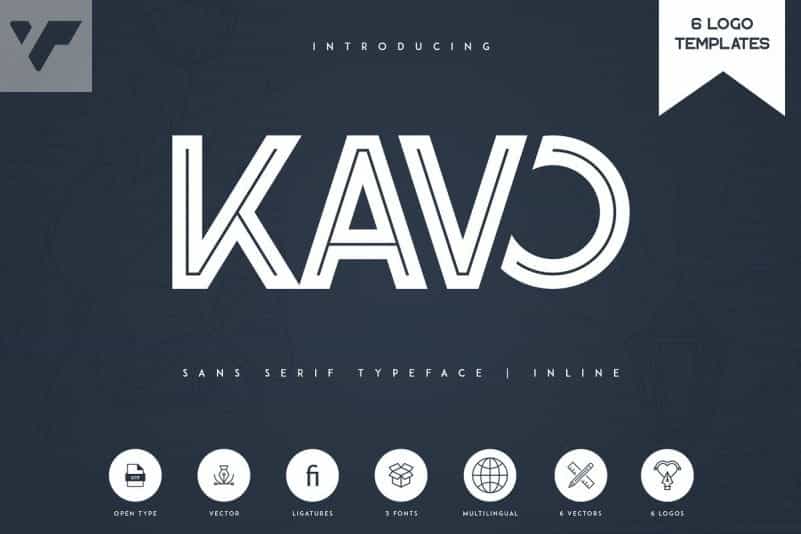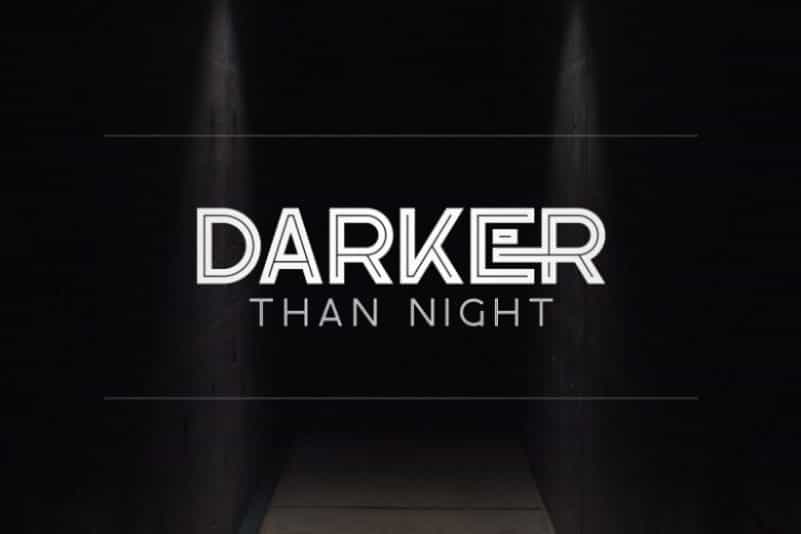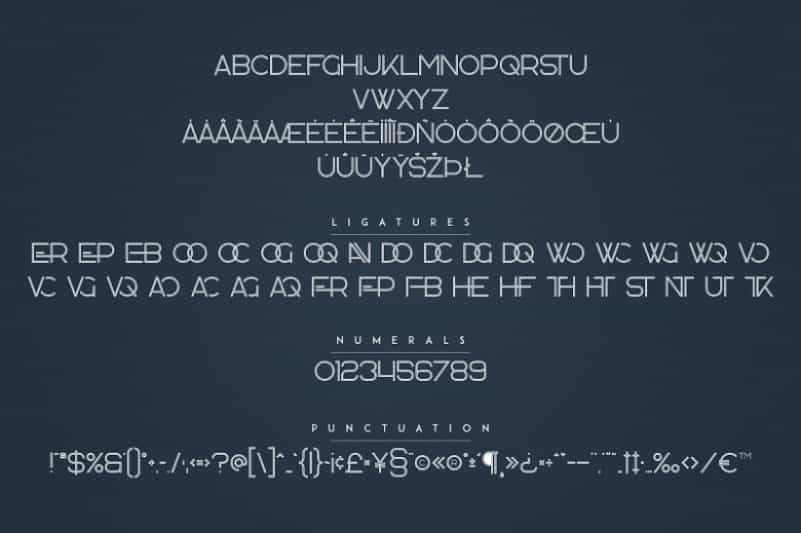
Kavo is modern inline typeface with 3 weight, ligatures, 6 wonderful vector designs as bonuses and multilingual help. It’s a very sophisticated font that can suit in both large and small sizes.